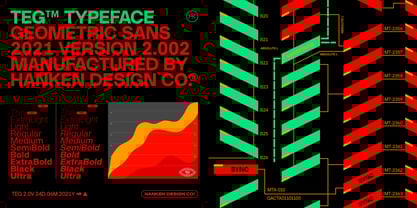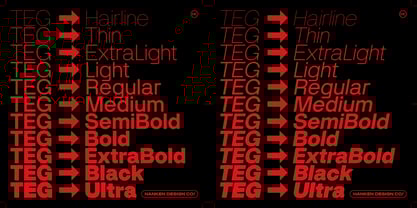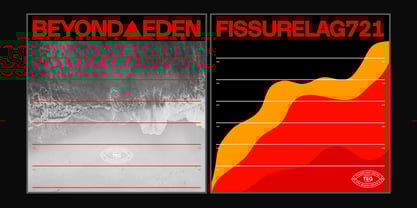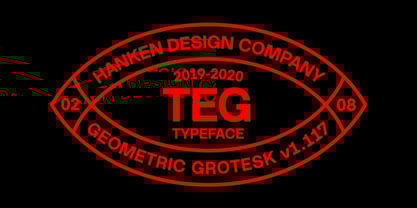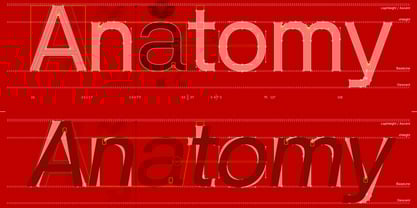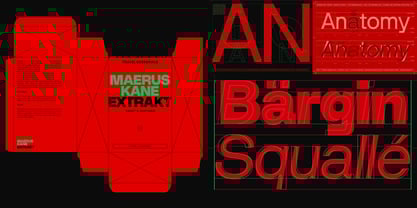
The TEG Font Family was designed by Alfredo Marco Pradil and published by Hanken Design Co.. TEG contains 22 styles and family package options. More about this family
TEG is a contemporary sans-serif typeface, synthesizing elements of geometric and grotesque design paradigms. Its mono-linear construction, coupled with a deliberate articulation of sharp and rounded forms, yields a hybrid aesthetic, characterized by a futuristic-classic grotesque sensibility.